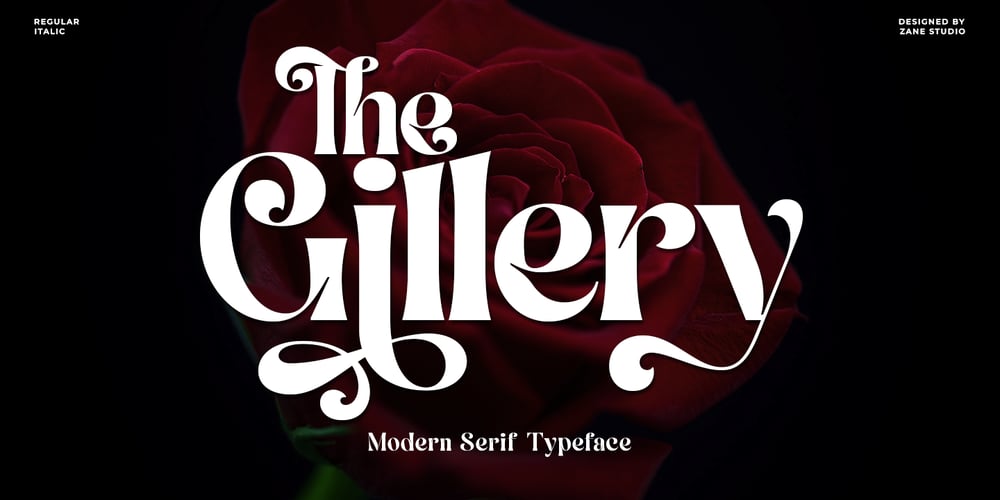
The Gilleri Font Family was designed by Mur Zani and published by Zane Studio. The Gilleri contains 1 styles and family package options. The Gillery – Modern Serif Typeface – Expressive Feminine Branding Logo Font. The Gillery Serif comes with several alternatives and ligatures, so you can combine them to create the perfect typography design. It’s perfect for your upcoming project. Such as luxury logos and branding, classy editorial designs, women’s magazines, cosmetic brands, fashion promotions, art gallery branding, museums, architectural history, boutique branding, stationery design, blog design, modern advertising design, invitation cards, art quotes, home decoration , book titles/covers, special events, and more. There he is! Have fun with the Gillery Serif Font. Thank You! Zane Std